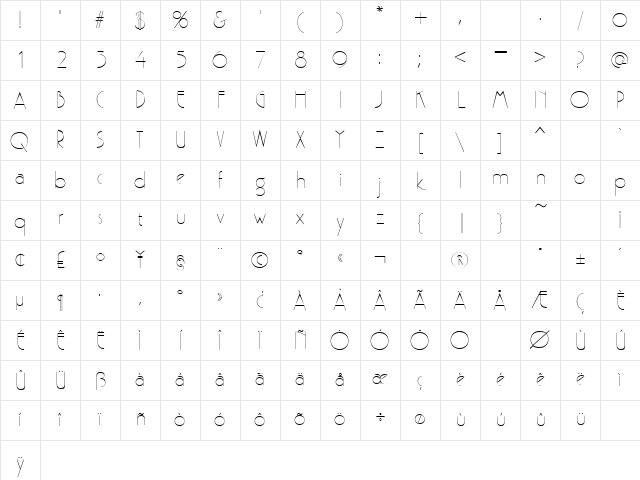
Pergamon Regular Free Font
Pergamon Regular
Pergamon Family
Complete Pergamon Regular glyph index. Displaying only characters natively supported by Pergamon Regular font.
Design Context for Pergamon
Pergamon is a composed and adaptable typeface that performs quietly and consistently across a wide range of design contexts.